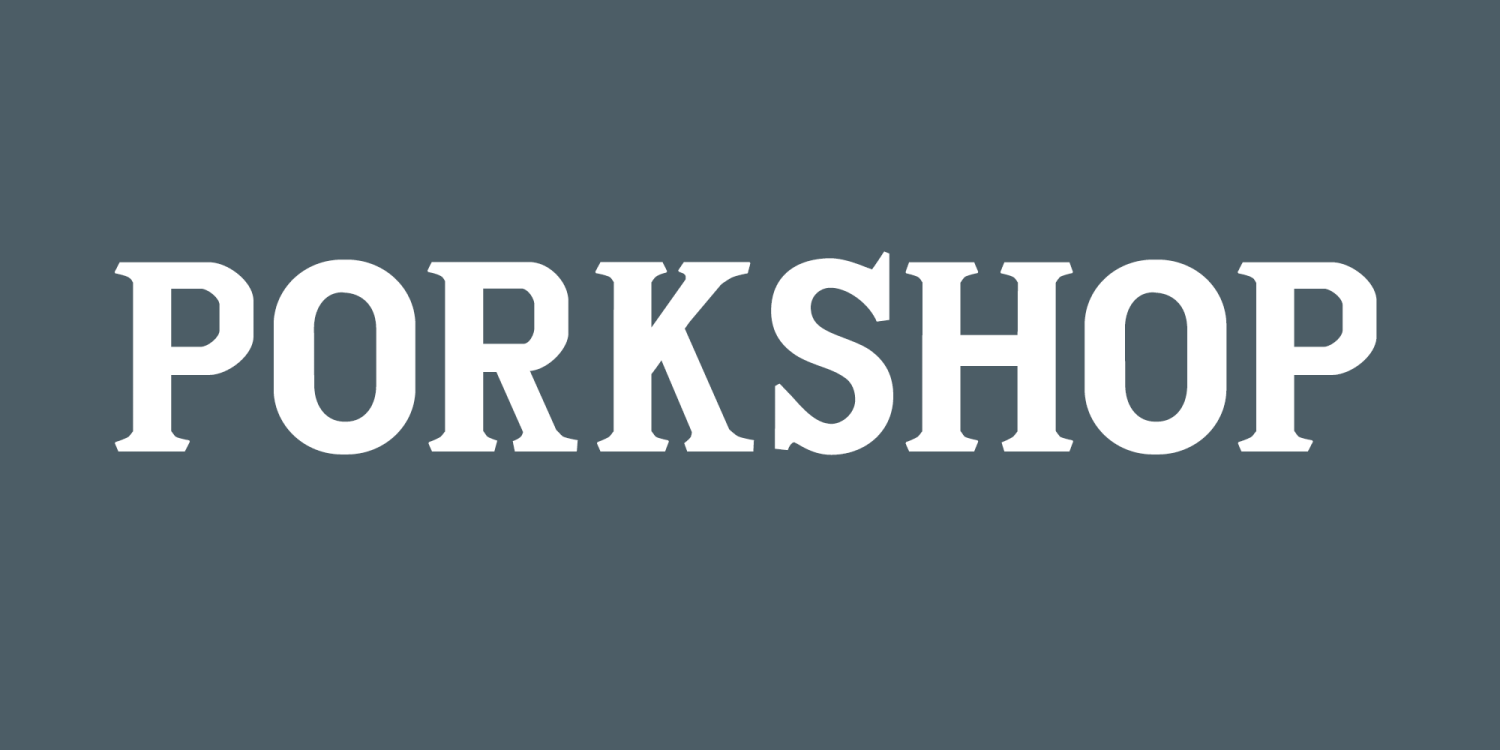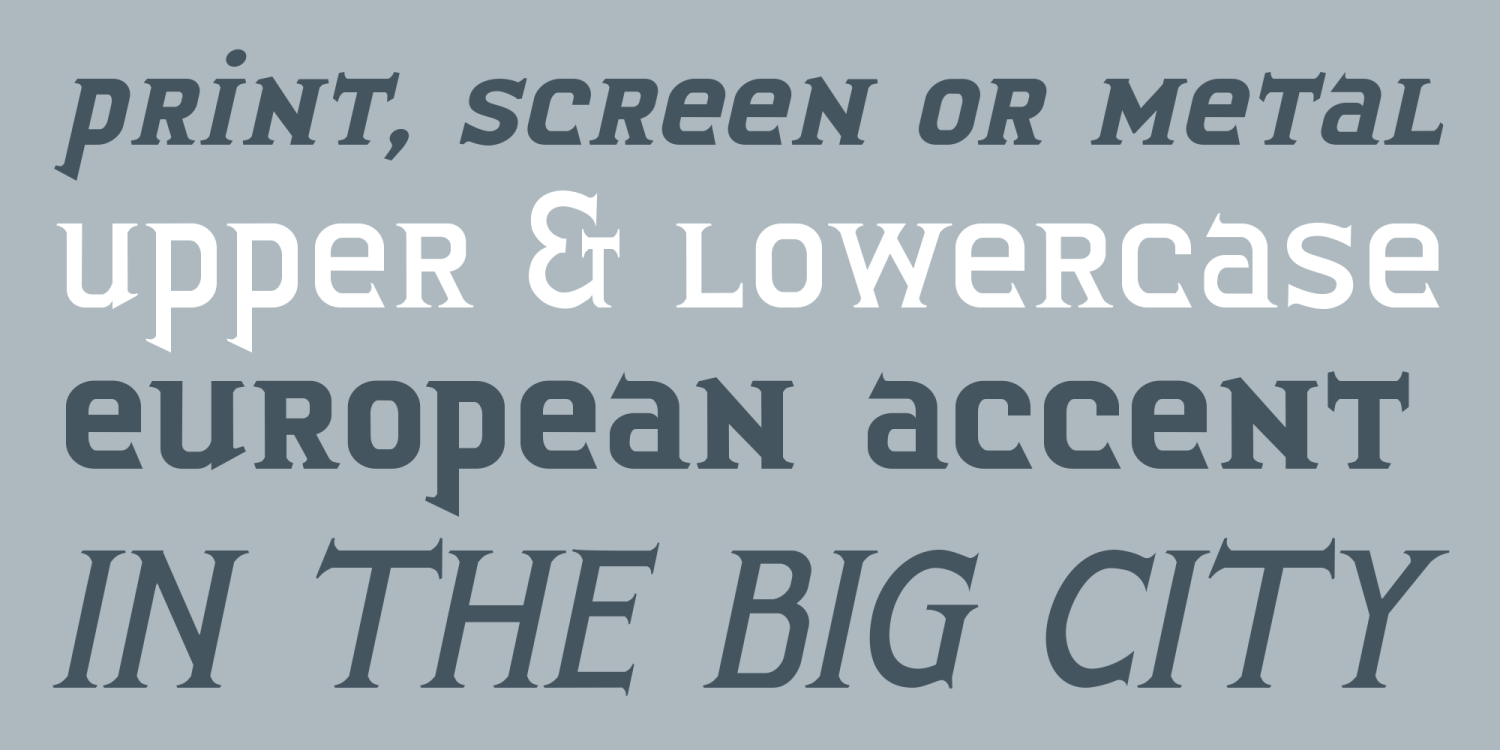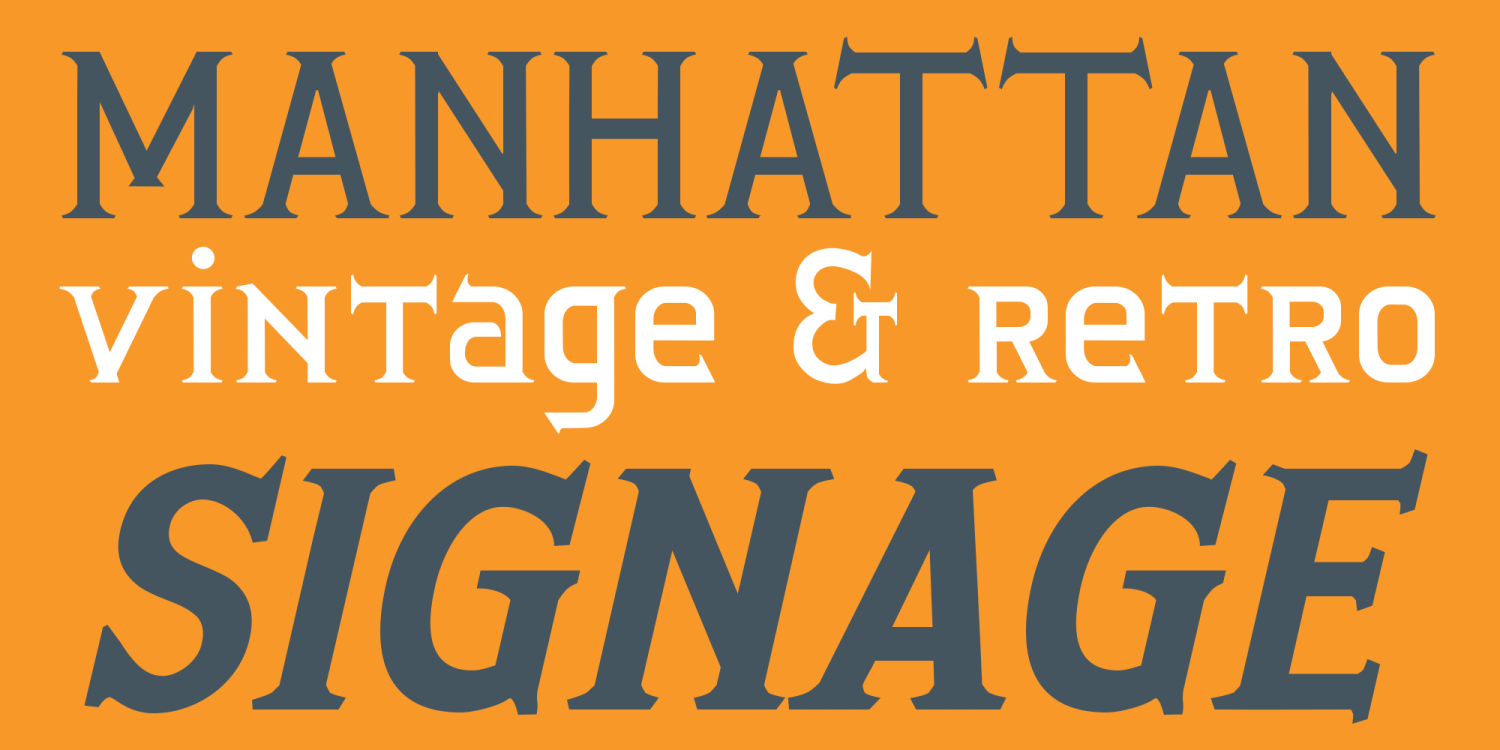
Porkshop
Font Family by Chank Co
Porkshop is a font of retro vintage flavor with a hefty dose of immigrant-influenced naive typography. It's fundamentally inspired by an old and removed "Pork Shop" sign in Manhattan. I like to think that this font was made by a signmaker's apprentice who didn't yet have a grasp on the subtleties of elegant letterforms, but put his gusto into perfectly sharp serifs. While pointy little serifs are cool, the real shine of this font comes from the imaginative combination of uppercase and lowercase shapes. This unique mixture in the lowercase reminds me of an indeterminate European accent in the big city. Big and strong and easy to understand. Best rendered in 3-foot tall metal type, Porkshop works well in print and on screens, too. The Bolds and Italics were added in 2011.